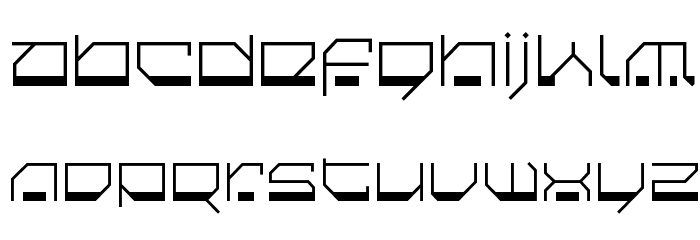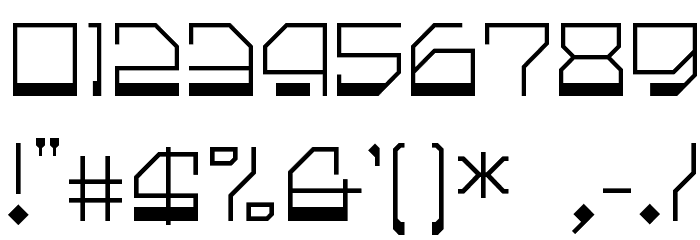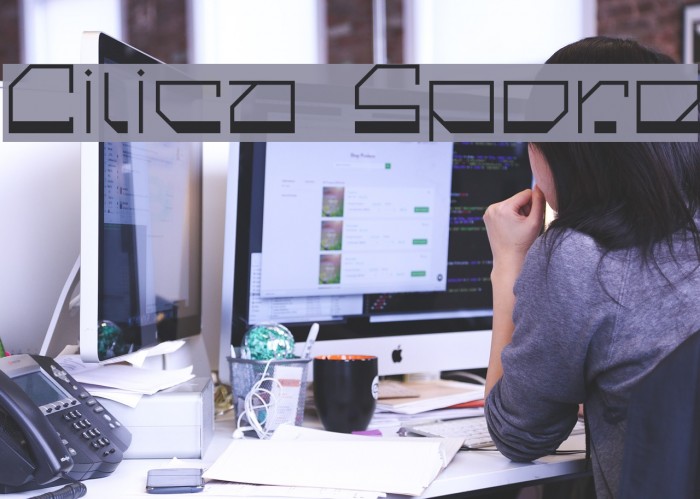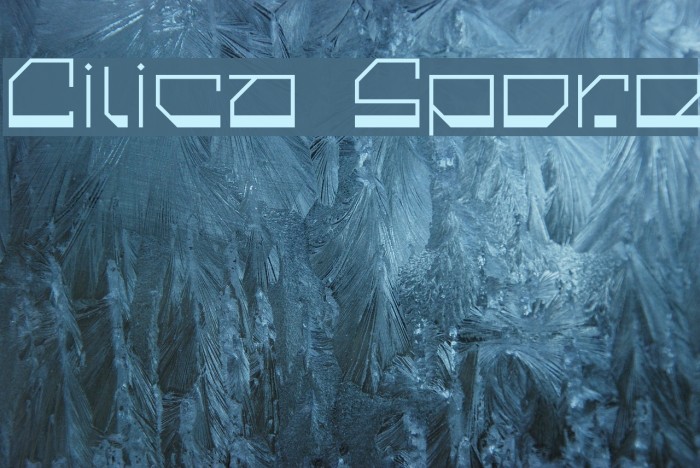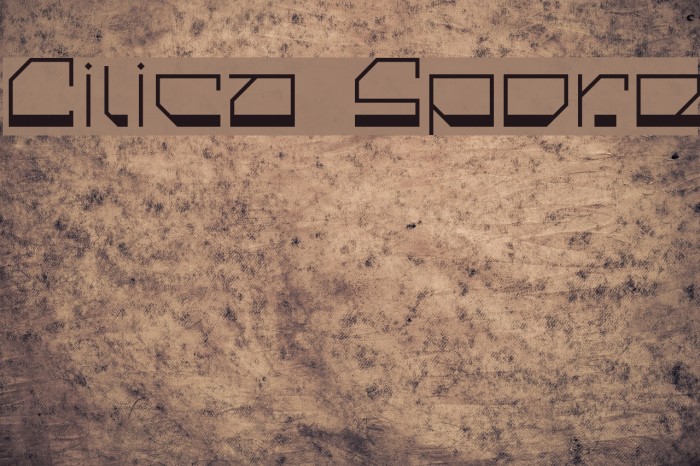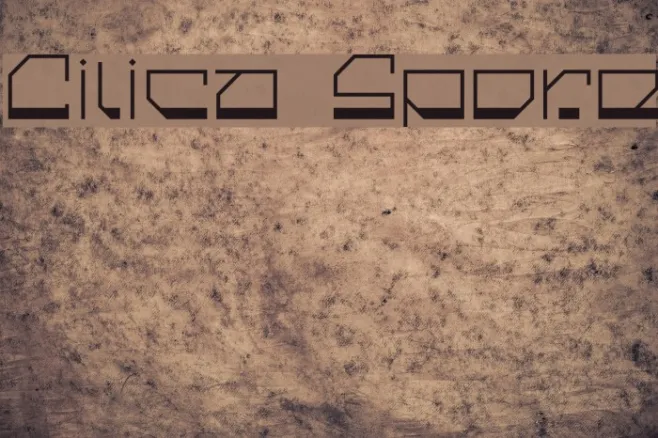
Cilica Spore Font
This font exhibits a futuristic and geometric design, characterized by sharp angles and a blocky structure. The uppercase and lowercase letters maintain a consistent angular style, creating a cohesive and modern appearance. The numerals and special characters follow the same design principles, ensuring uniformity across all glyphs. The font's unique style is both eye-catching and versatile, making it suitable for a variety of creative applications. Its bold and structured form is ideal for projects that require a strong visual impact.
A futuristic, geometric font with sharp angles and a bold, structured appearance.
- Proposed Projects: Ideal for sci-fi themed designs, technology branding, video game titles, and modern posters.